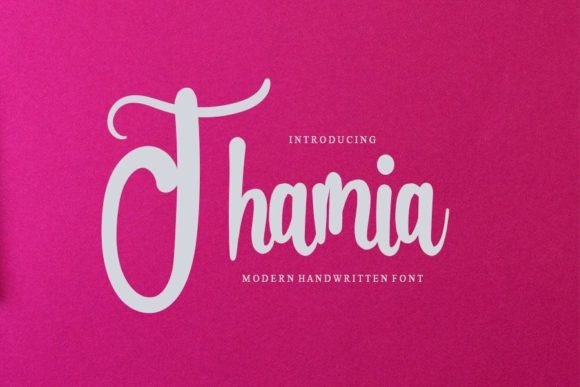
Introducing Thamia Font: The Perfect Script Font for Your Business Checks
In a world of digital transactions, the art of writing checks is fading away. But for those who still appreciate the personal touch of a handwritten check, the choice of font is paramount. Introducing Thamia Font, the ultimate script font designed to elevate your business checks and make a lasting impression.
Thamia Font is a modern calligraphy-inspired font that exudes sophistication and professionalism. Its balanced and varied strokes create a visually appealing aesthetic that is both timeless and contemporary. Not too thin and not too thick, Thamia Font is easy to read and adds a touch of elegance to any business check.
Why Choose Thamia Font for Your Business Checks?
1. **Unparalleled Legibility:** Thamia Font's carefully crafted letterforms ensure exceptional legibility, making it easy for recipients to read and understand the information on your checks. No more squinting or deciphering messy handwriting.
2. **Professional and Trustworthy:** The classic calligraphy style of Thamia Font conveys a sense of professionalism and trustworthiness, reflecting positively on your business image. When you present a check written in Thamia Font, you are demonstrating attention to detail and a commitment to quality.
3. **A Touch of Personalization:** In an increasingly digital world, a handwritten check with a beautiful font like Thamia adds a personal touch that is sure to be appreciated. It shows your customers or clients that you value their business and that you take pride in every aspect of your interactions with them.
4. **Versatile and Adaptable:** Thamia Font's versatility extends beyond business checks. It is also perfect for creating elegant invitations, stylish logos, eye-catching social media graphics, and more. With Thamia Font, your creativity knows no bounds.
Thamia Font is more than just a font; it's an investment in your business's image and reputation. With its sophisticated style, unparalleled legibility, and versatile applications, Thamia Font is the perfect choice for business checks and a wide range of other creative projects.